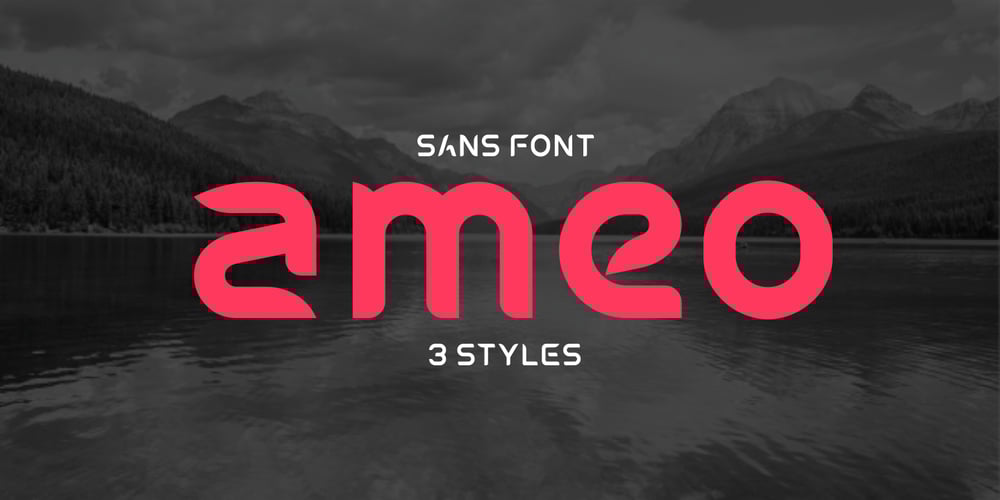
Ameo Font Family was designed by Ruslan Tsyganov and published by artsterdam. Ameo contains 3 styles and family package options. Ameo is a modern sans-serif font with flowinglines with sharp edges. The font has three sizes: bold, regular and light. Uppercase, lowercase letters, as well as numbers and symbols are included. Ameo is a simple font and has a modern look, so it will suit many projects